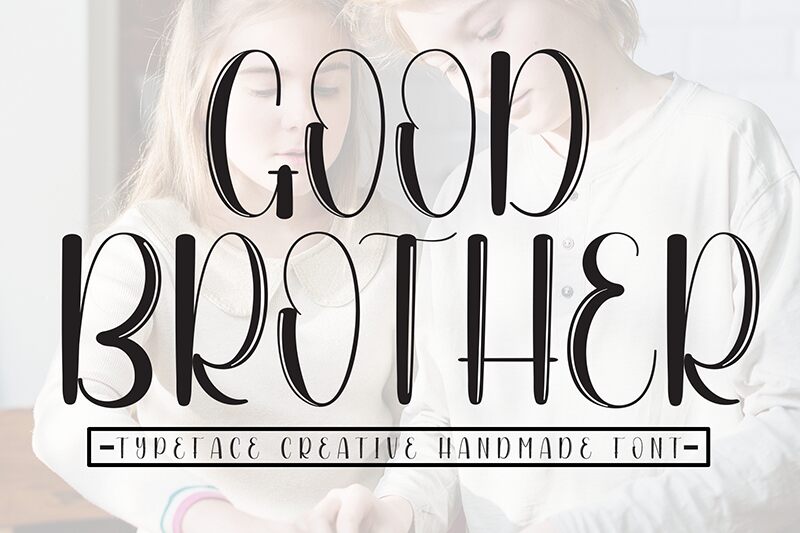
Good Brother
Good Brother font is a free calligraphy font designed by Andi Moz with artistic, vintage-inspired characters. It has expressive features, decorative curves, and an elegant form with a distinct flair that sets it apart from the rest. The use of mixed-line patterns gives it its sleek and well-balanced look which further highlights its exquisite overall design.
Use this beautiful typeface on greeting cards for friends and loved ones or as a logo for your business card. Good Brother even works on branding projects, marketing materials, magazine covers or pages. Use it in your social media ads or posts where you want to leave your audiences engaged at first sight.